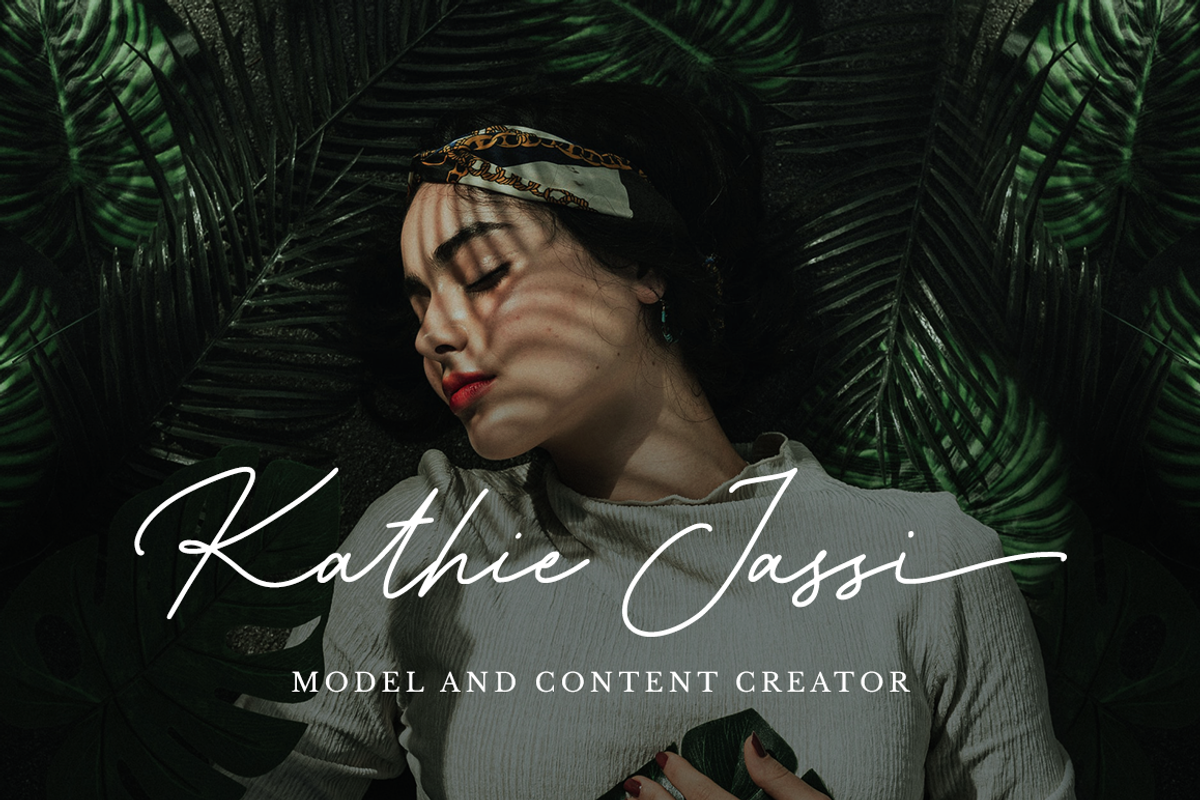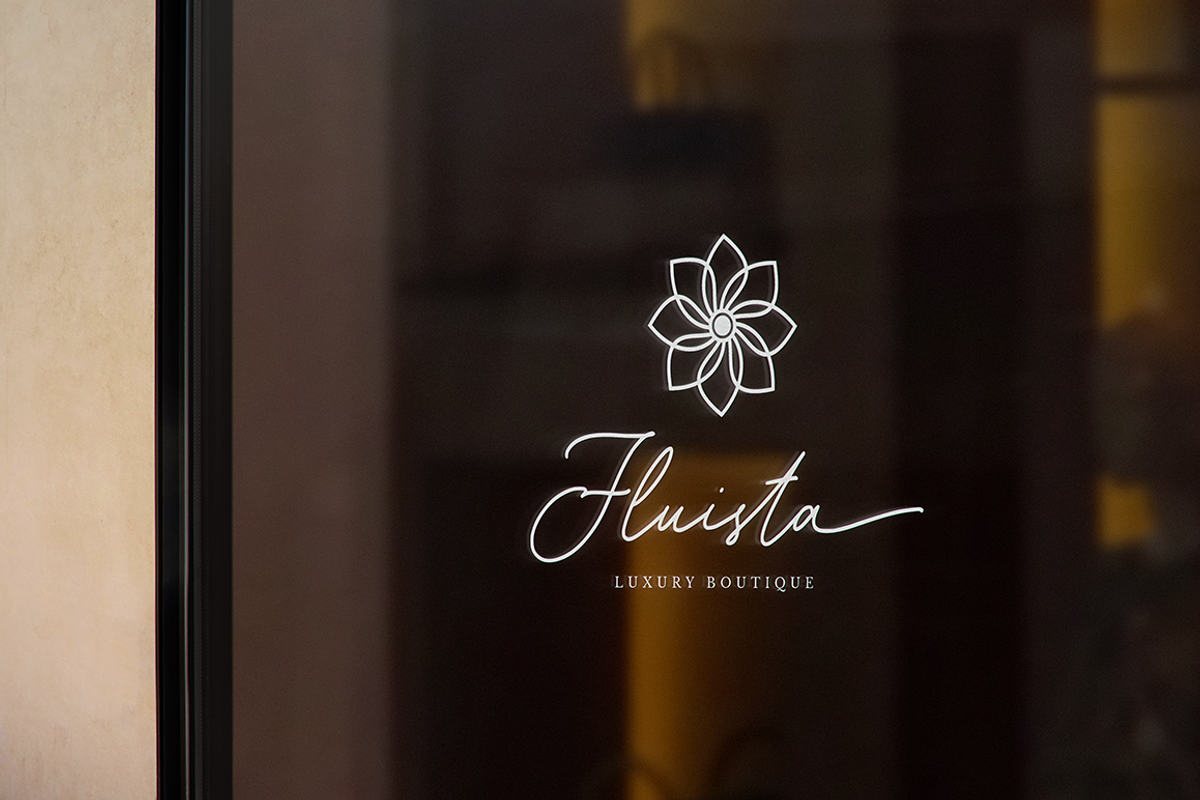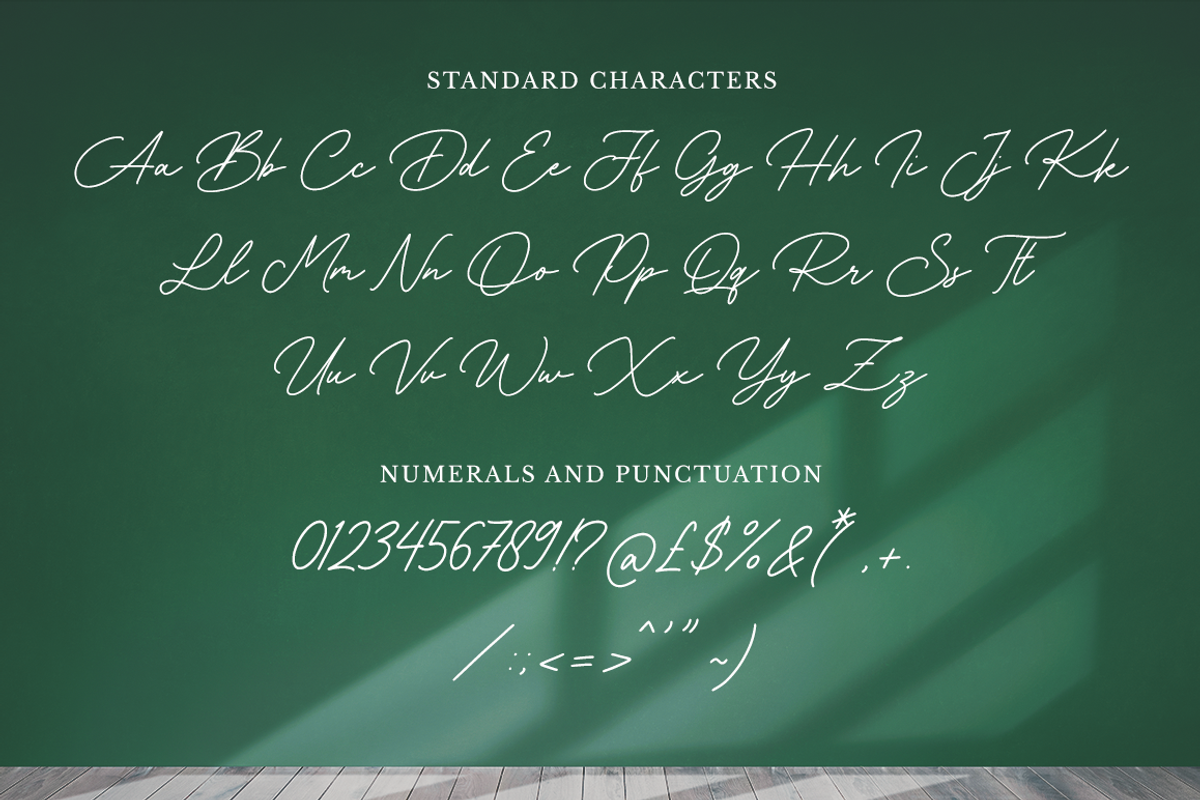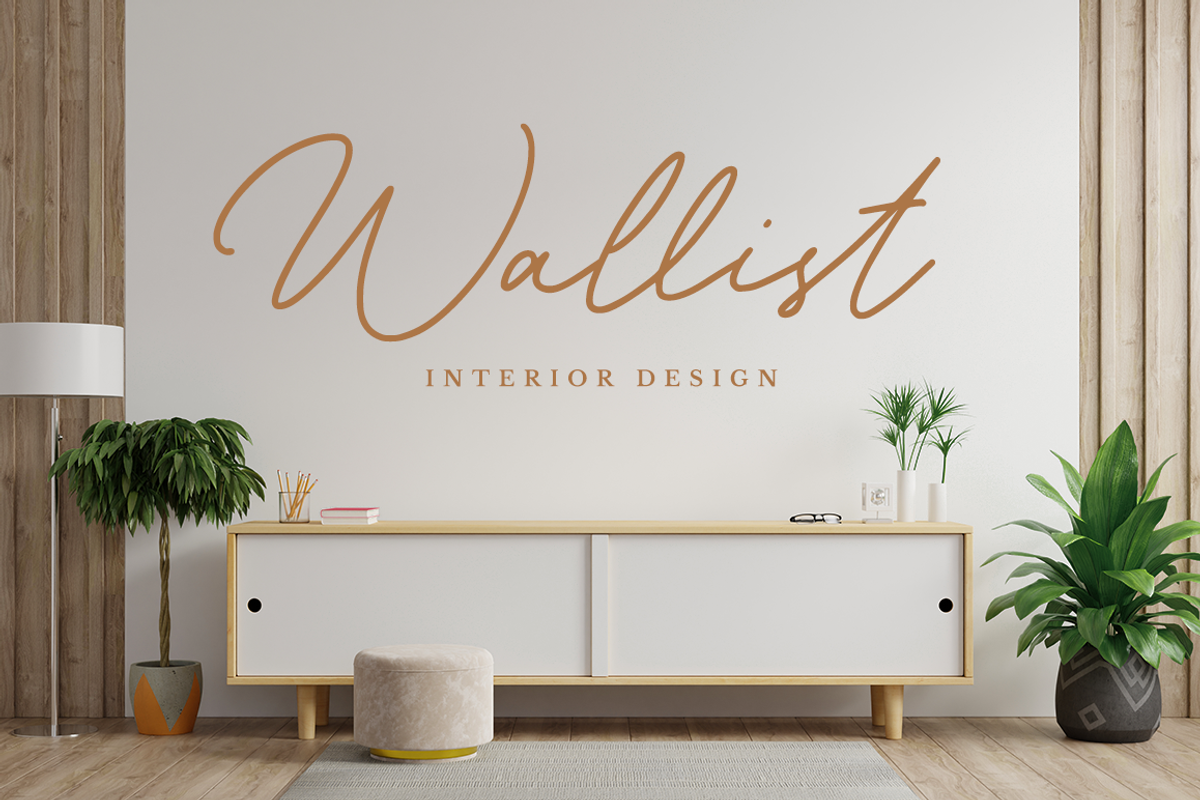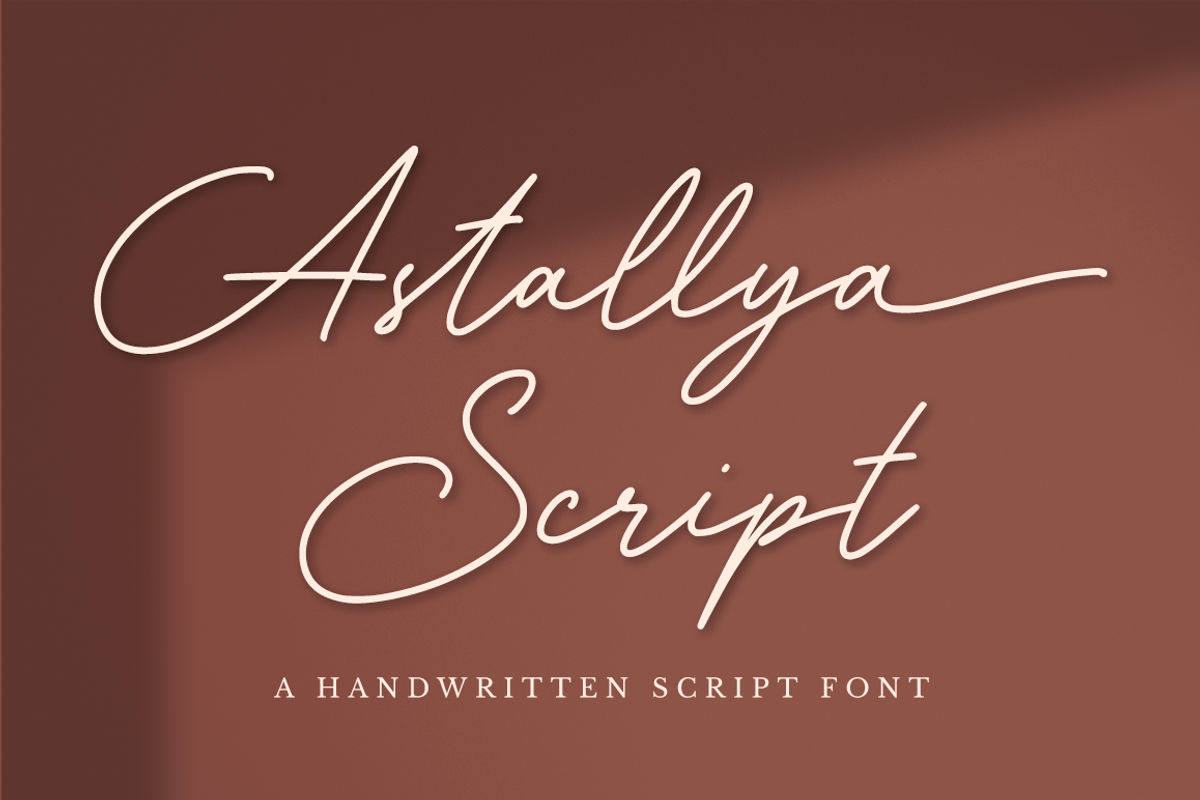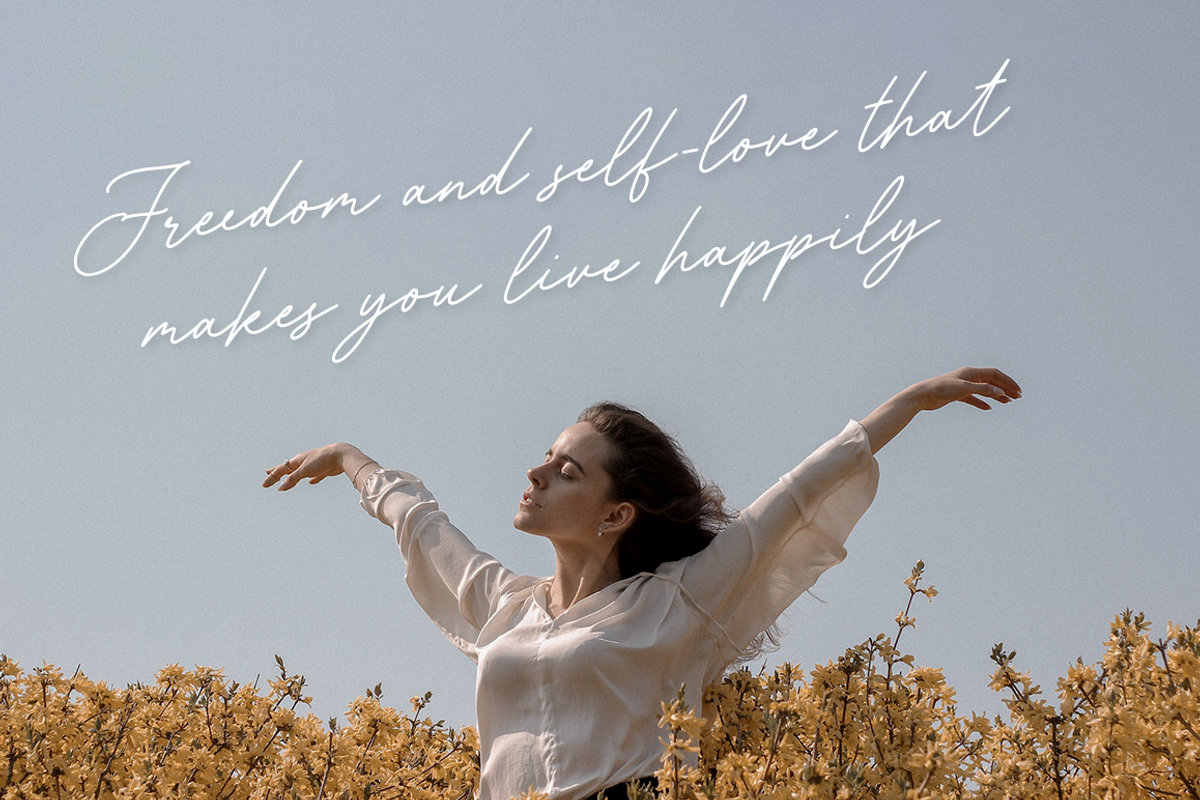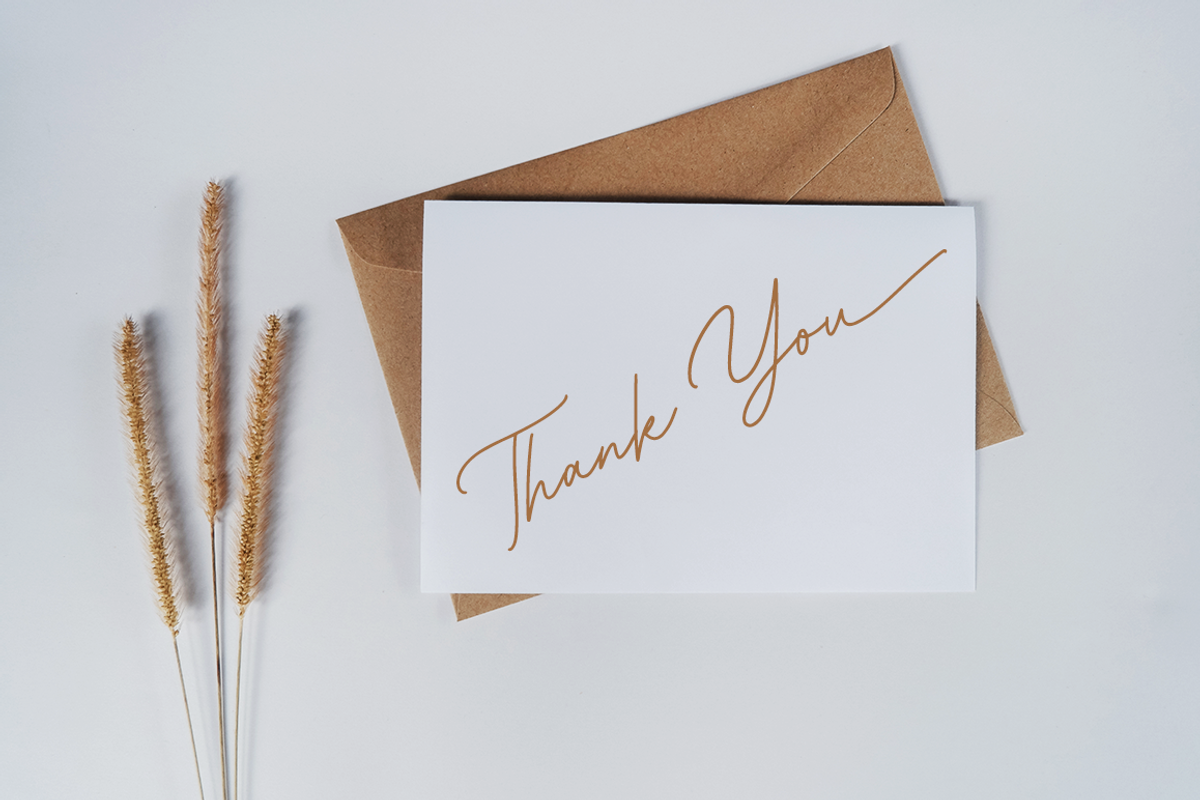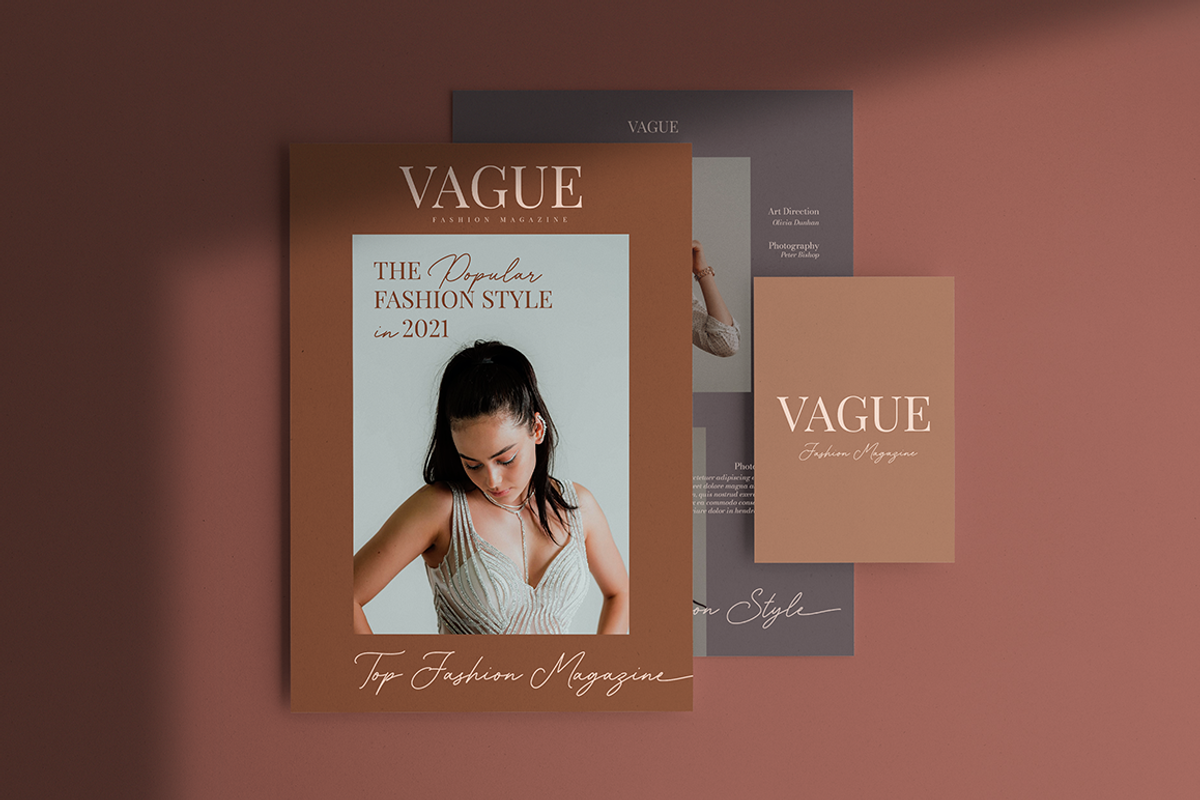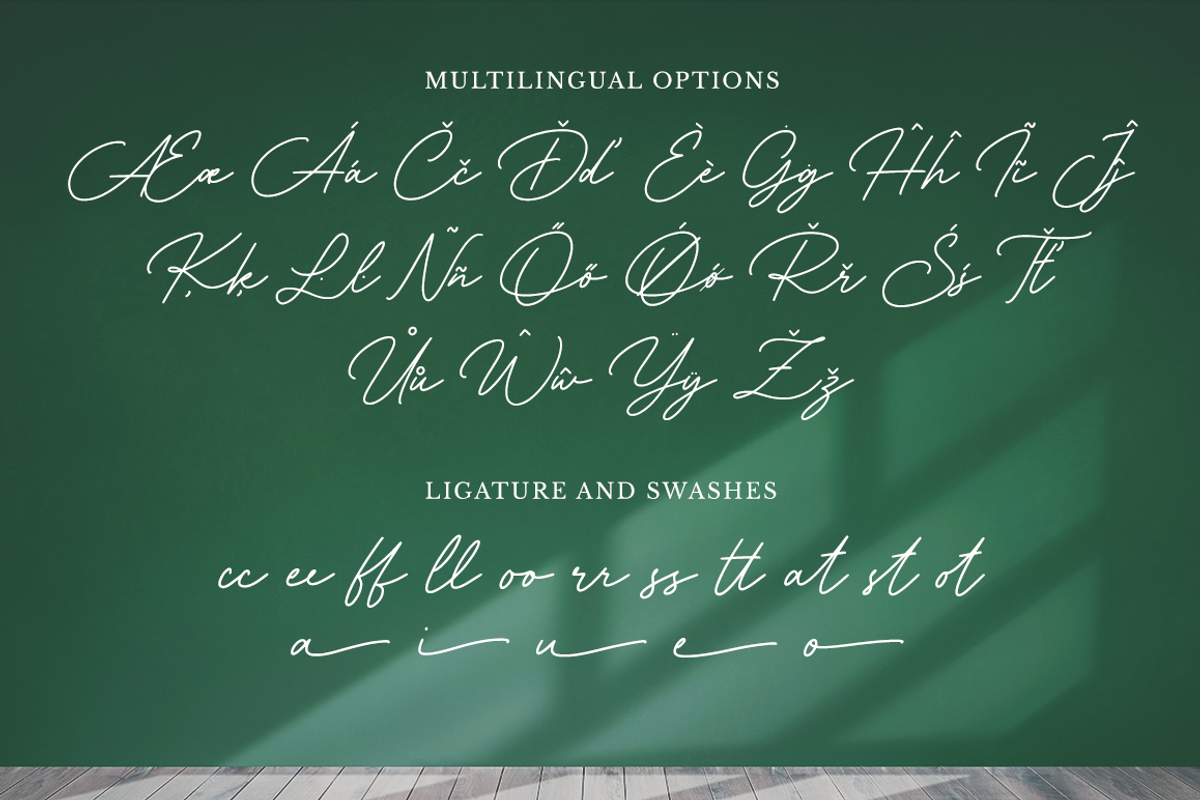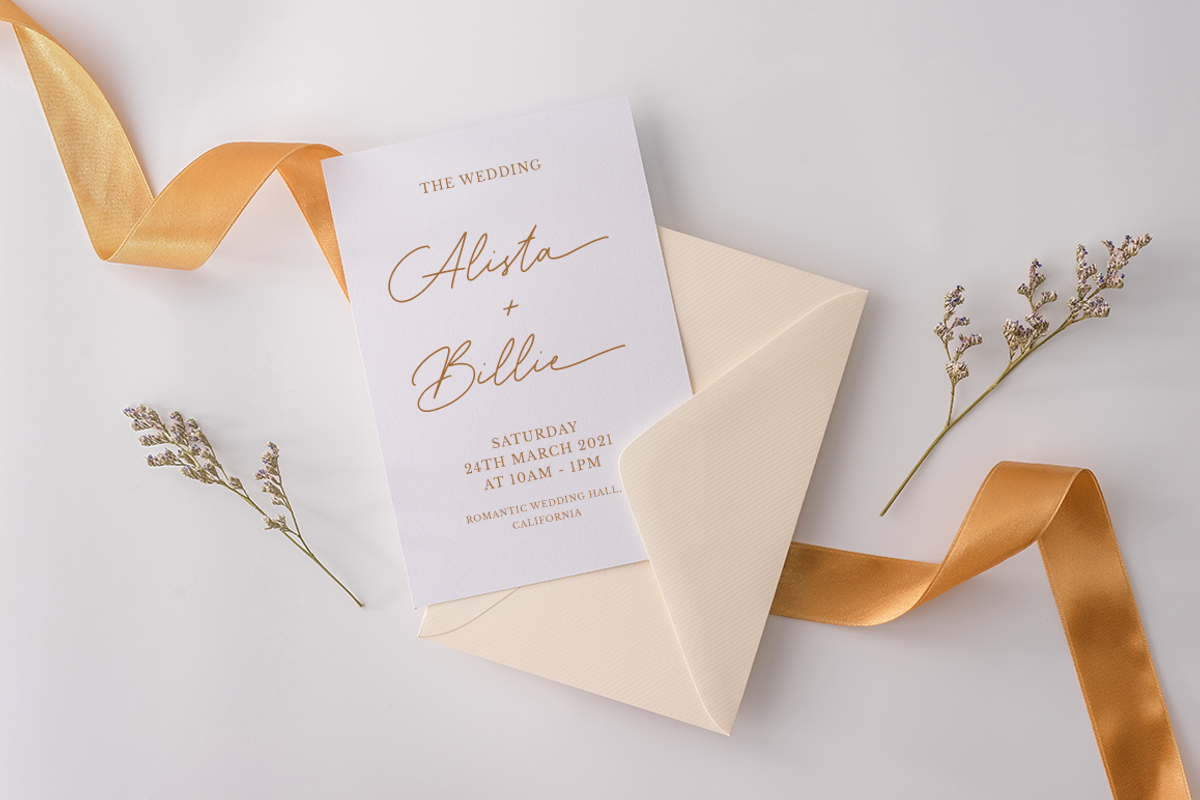
Astallya - Signature Font
Astallya Script is a modern signature font which is combining classic calligraphy with a modern style. Its dancing baseline will give your design an elegant and modern touch.